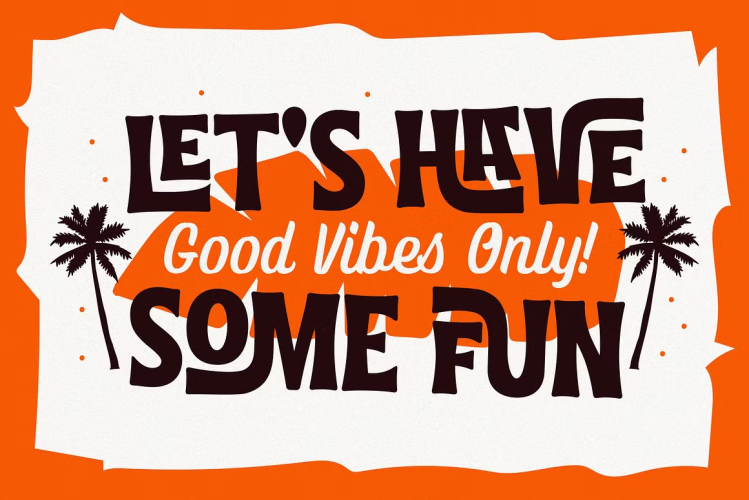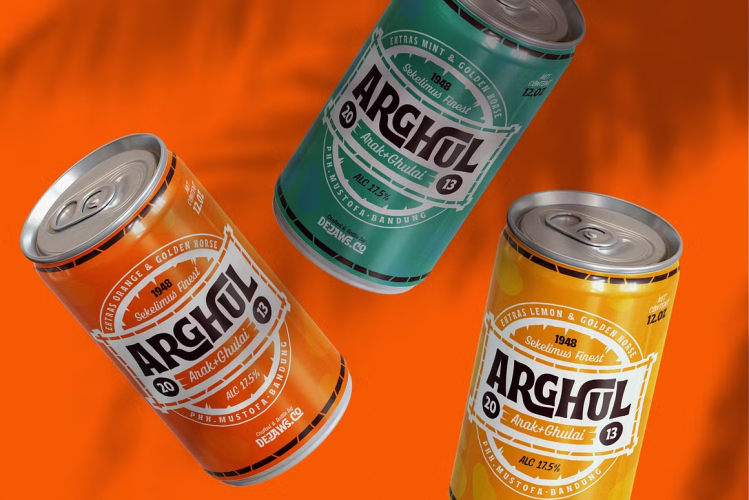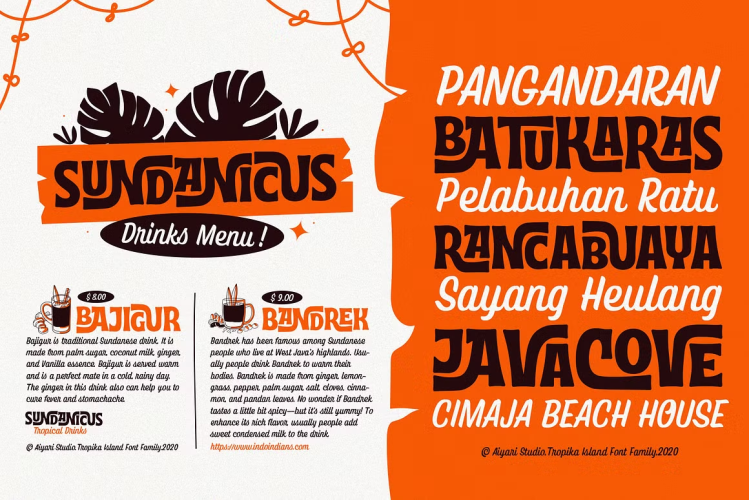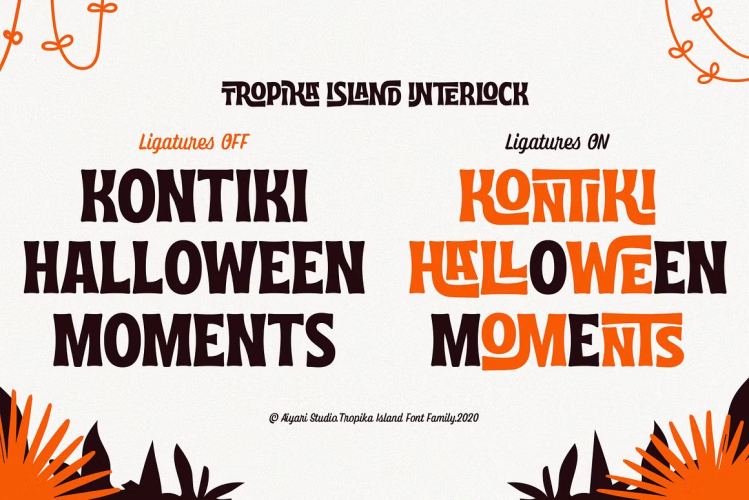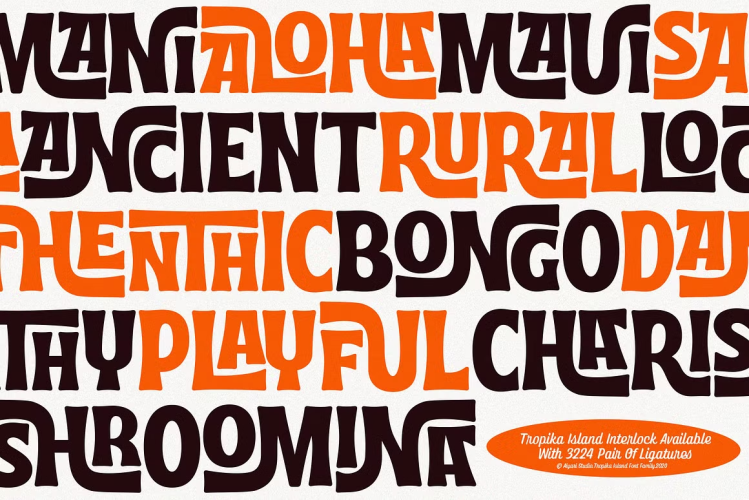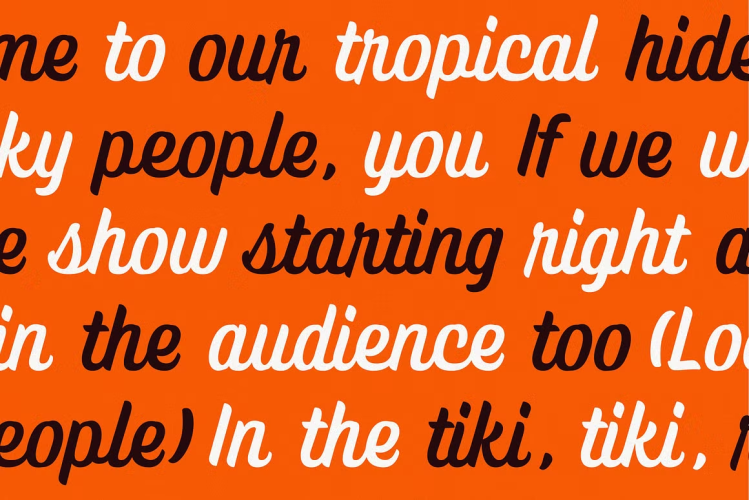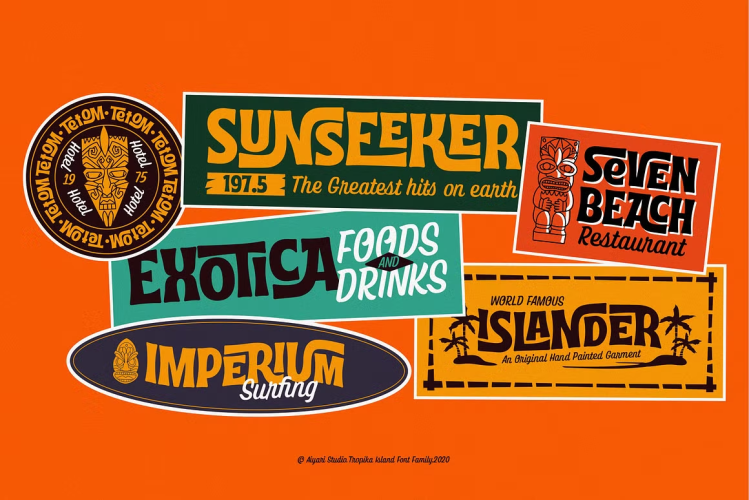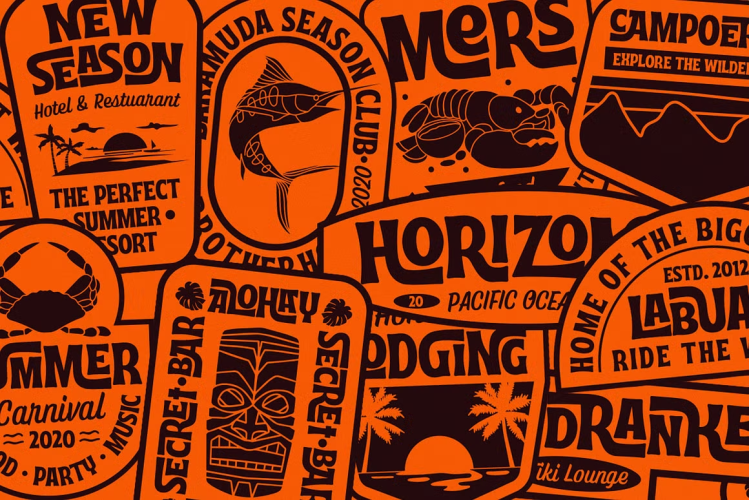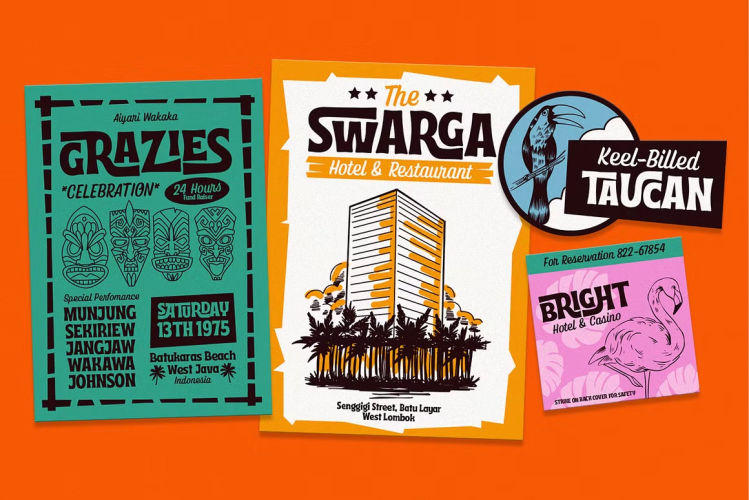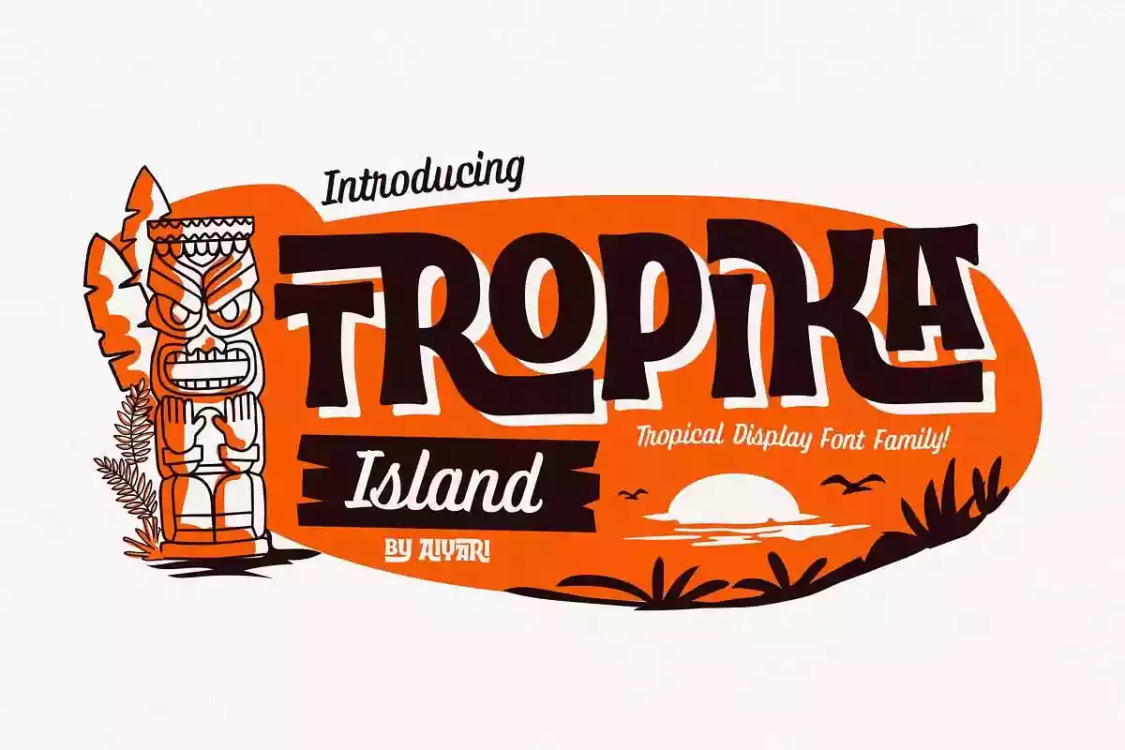
Tropika Island Font
Introducing a new Tropical Display Font Family called Tropika Island. The unique features of the Tropika Island Font Family are Tropika Interlock, which comes with 3224 pairs of ligatures, Stylistic Alternate, & Stylistic Set 01-03. The Tropika Script complemented open-type features, such as ligatures, terminal forms, initial forms, and stylistic alternates.
Tropika Island Font Family is best used for headings, logotypes, quotes, apparel design, invitations, posters, flyers, greeting cards, packaging, book covers, printed quotes, album covers, movies, and more.
Where Tropika Island Font works best
Tropika Island Font is built for size: event posters, hero headlines and billboard-style layouts.
High contrast display type like Tropika Island Font reads instantly in thumbnails and motion graphics.
What is Tropika Island Font good for?